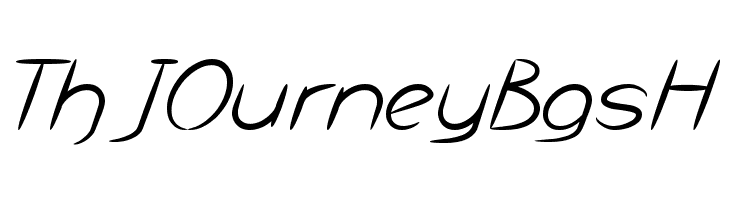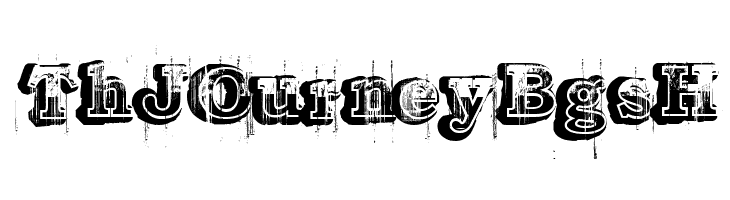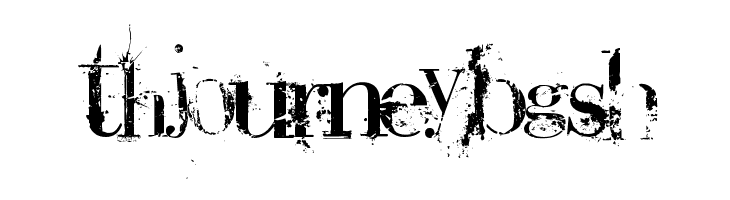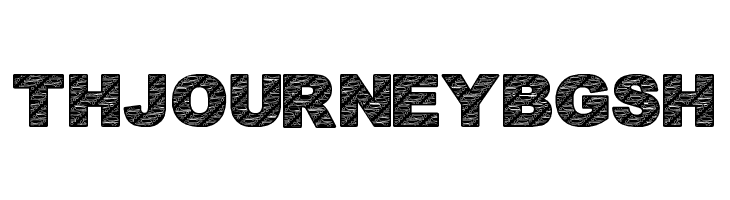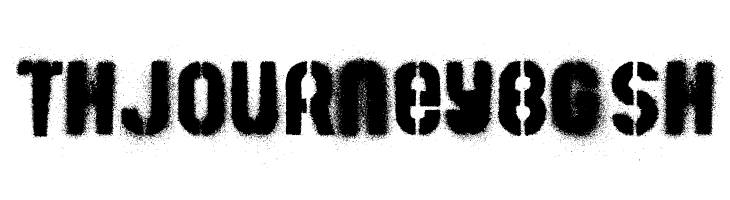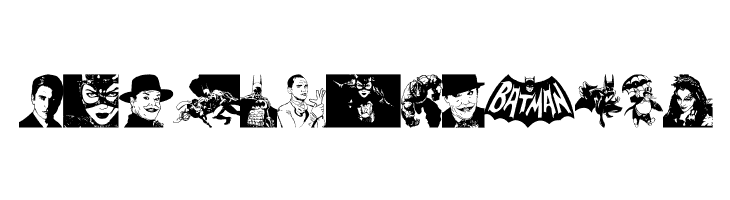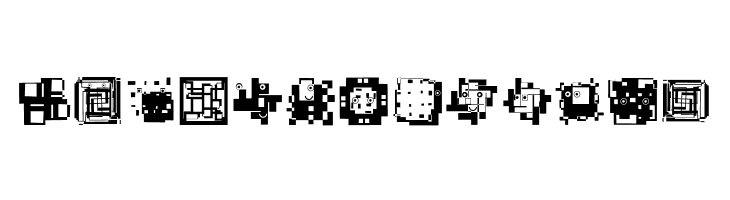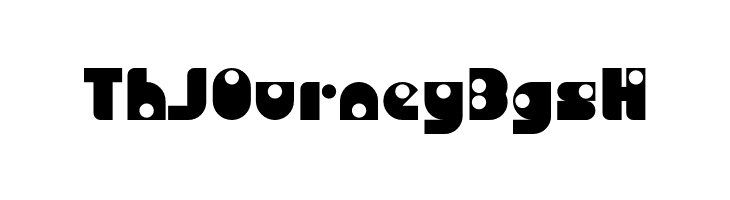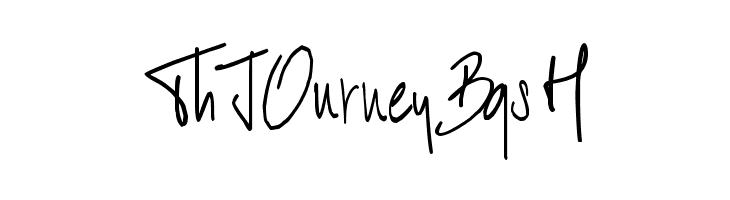
• Barber shop
A bold, distressed font with a vintage, grunge aesthetic.
• Barrio 30
A bold, stencil-style font with a gritty, urban texture.
• BART Handschrift
A lively handwritten font with varied stroke thickness and an informal style.
• BatikFont1
• Batman The Dark Knight
• Bauer PlAGuE dEaTH
A distressed, grunge-style font with a weathered, eroded appearance.
• BauerBear Attack
• BauhausOSix
A decorative, geometric font with a pixelated, abstract design.
• Bayou
• BDPipe
A bold, geometric font with circular cutouts for a modern, playful look.